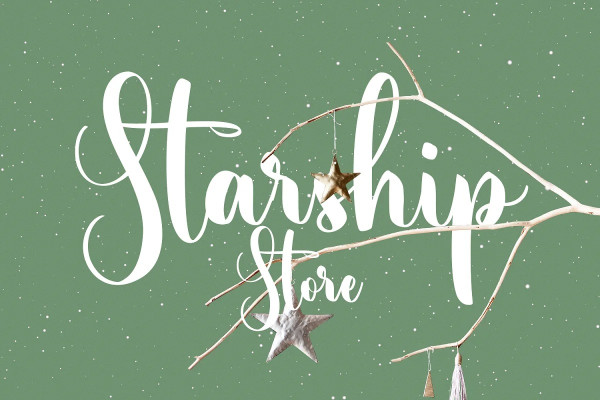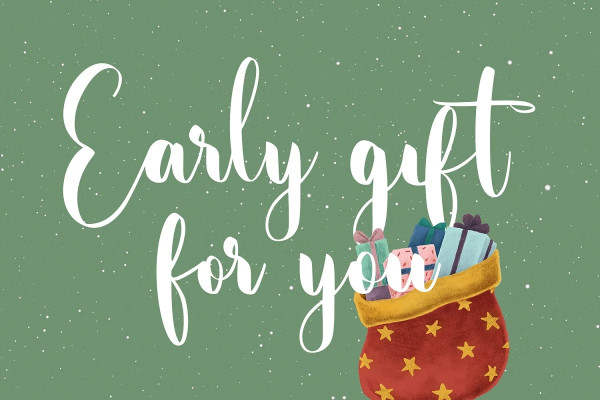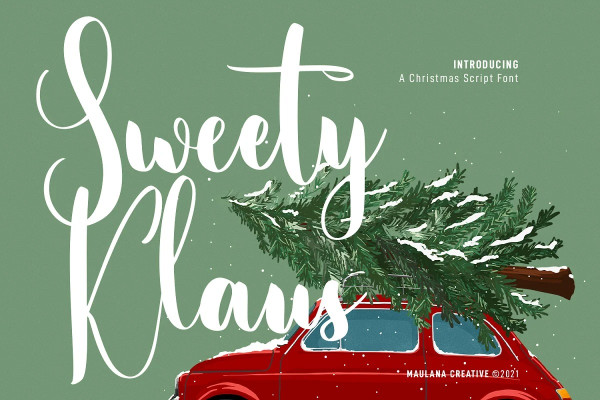
Sweety Klaus Font
Sweety Klaus Font is a casual stylish script font. With regular contrast stroke, fun character with a bit of ligatures. To give you an extra creative work. Sweety Klaus font support multilingual more than 100+ language. This font is good for logo design, Social media, Movie Titles, Books Titles, a short text even a long text letter and good for your secondary text font with sans or serif. Make a stunning work with Sweety Klaus font.